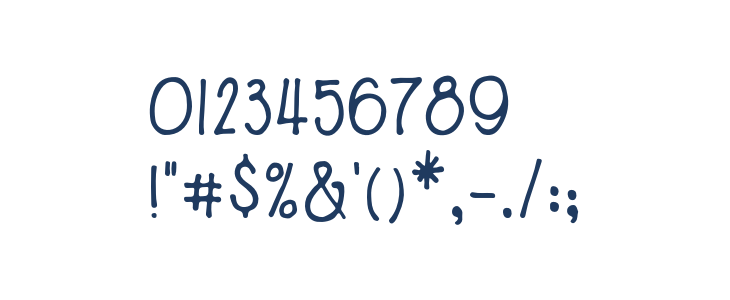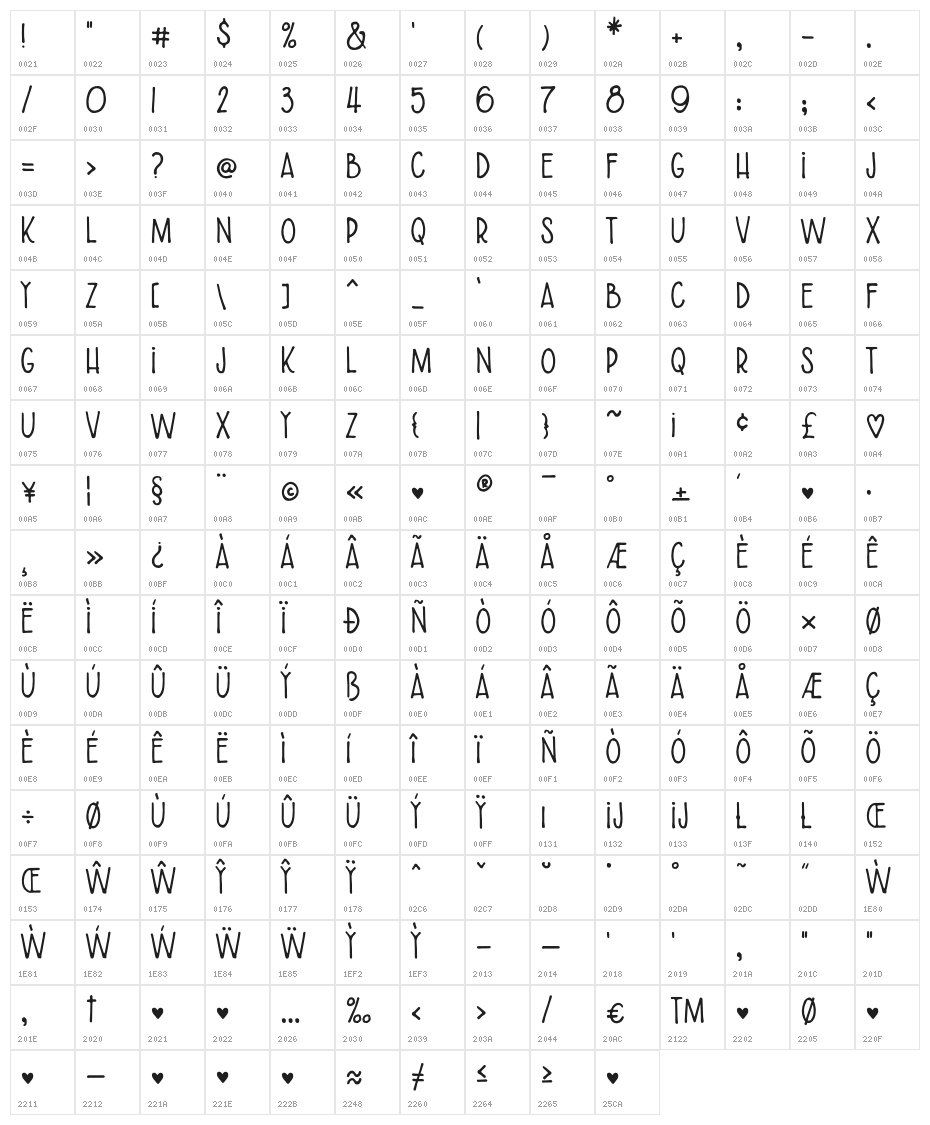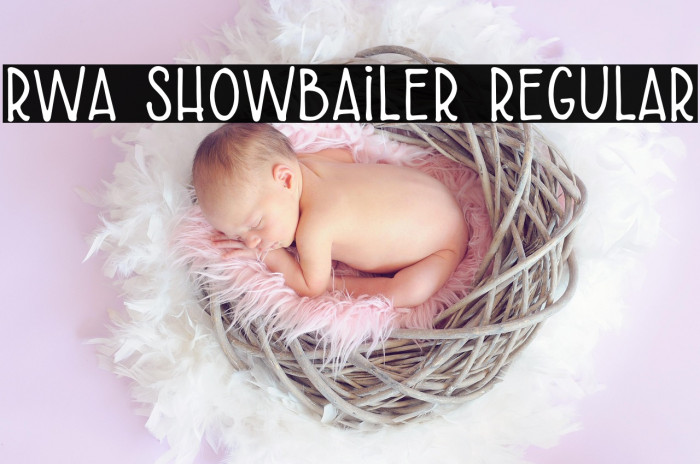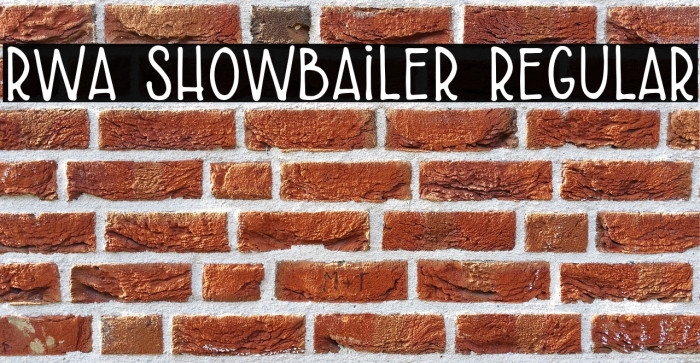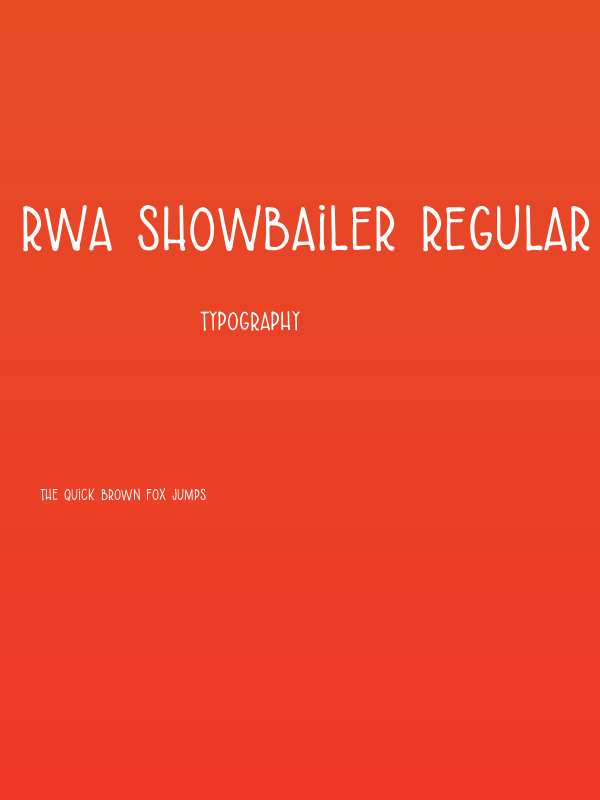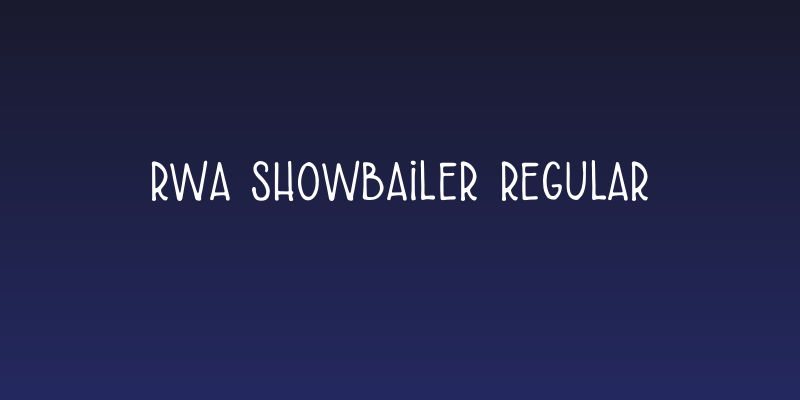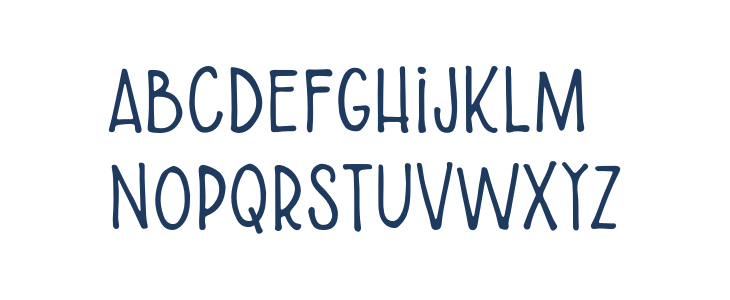
RWA Showbailer Regular Font
RWA Showbailer Regular Description
This font features a playful and casual handwritten style, characterized by its rounded and slightly irregular letterforms. The strokes are consistent in width, giving it a uniform appearance while maintaining a friendly and approachable vibe. The characters are well-spaced, ensuring readability even at smaller sizes. The font includes a full set of uppercase and lowercase letters, numerals, and a variety of punctuation marks and special characters, making it versatile for different design needs. Its informal style is perfect for projects that require a personal touch.
Overall StyleCasual
Use CaseHeadlines, Logos, Informal Text
Proposed ProjectsIdeal for greeting cards, children's books, playful branding, and social media graphics.